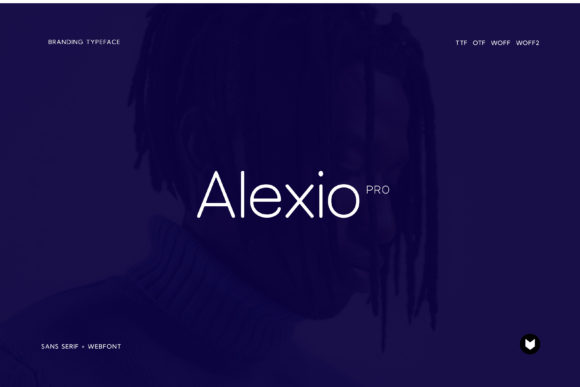
The Designer’s Delight: Uncovering the Charm of Alexio Font
I’ll never forget the time I was working on a branding project for a trendy new cafe. My client was particular about the aesthetic, and I was struggling to find the perfect font to match their vibe. That’s when I stumbled upon Alexio Font. It was like a breath of fresh air – clean, modern, and effortlessly cool. I knew right then and there that I had found the perfect fit. In this article, I’ll share my love for Alexio Font, its features, and how to make the most of it in your designs.
So, what makes Alexio Font so special? Here are a few things that I absolutely love:
- ✨ Clean and Minimal Design: Alexio Font boasts a sleek, sans-serif design that’s perfect for modern projects.
- ✅ Versatility: Its neutral tone makes it an excellent choice for a wide range of projects, from branding to digital media.
- 💡 Legibility: The font is incredibly easy to read, even at smaller sizes.
Of course, no font is perfect, and Alexio Font has a few minor quirks:
- 🤔 Limited Extras: While Alexio Font is excellent on its own, it doesn’t come with a wealth of extra features or variations.
- ⚠️ May Not Suit All Niches: Its modern aesthetic might not be the best fit for very traditional or vintage projects.
Exploring Alternatives: 4 Fonts Similar to Alexio
While Alexio Font is fantastic, it’s always good to have some alternatives in your design toolkit. Here are four fonts with similar vibes:
- Montserrat: A geometric sans-serif with a similar urban feel. Use it for modern branding and digital projects.
- Inter: A contemporary sans-serif designed specifically for digital interfaces. It’s great for tech and app-related projects.
- Open Sans: A clean and friendly sans-serif. It’s perfect for projects that require a softer touch.
- Raleway: An elegant sans-serif with a bit more flair. Use it for projects that need a touch of sophistication.
The Story Behind Alexio Font
While the origins of Alexio Font might not be well-documented, it’s easy to imagine a designer with a passion for modern minimalism creating it. Perhaps they were inspired by the urban landscape and sought to bottle that aesthetic into a typeface. Whatever the story, Alexio Font has undoubtedly become a favorite among designers for its clean lines and versatility.
| What makes Alexio Font stand out? | Its clean, minimal design and exceptional legibility make it perfect for a wide range of projects. |
| Is Alexio Font suitable for print projects? | Absolutely! Its clear and readable design makes it an excellent choice for both digital and print media. |
| Are there any similar fonts to Alexio? | Yes, fonts like Montserrat, Inter, Open Sans, and Raleway share similar qualities and can be great alternatives. |
In conclusion, Alexio Font is a versatile and stylish addition to any designer’s toolkit. Its clean design, ease of use, and wide applicability make it a go-to for projects that demand a modern touch. Give it a try and see how it elevates your designs!